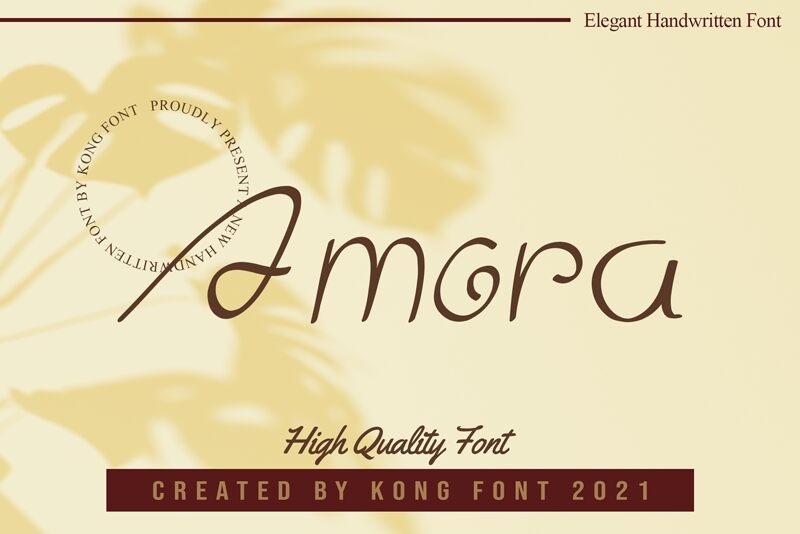
Amora font family is a graceful script type designed by Kong Font with a sophisticated, fluid style. Made up of 2 font styles with consistency, this beautiful free font family features a minimalist yet artistic look suitable for various design applications. With a complete character set and some alternate possibilities, the font would align perfectly with any projects that need a contemporary flair.
Use it for branding purposes in luxury fashion, cosmetics, beauty products, florists, and high-end food establishments. This font will elevate your logotypes, posters, merchandise, stationery, and invitation cards.